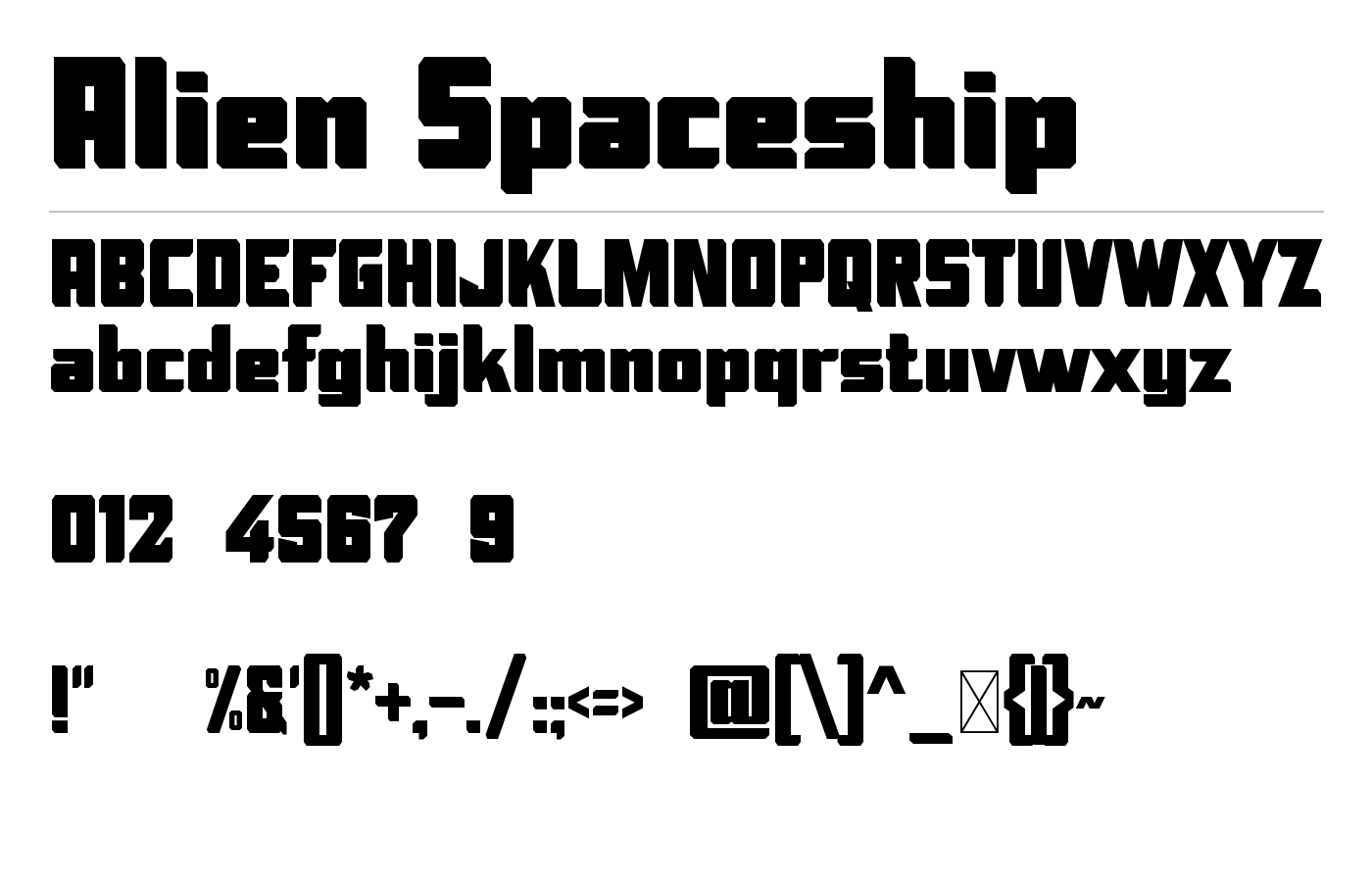
Alien Spaceship Font is a bold, blocky sans serif typeface with a futuristic, sci-fi vibe. Its heavy weight and condensed letterforms feature sharp corners and geometric shapes, making it ideal for striking headlines and logos that need a modern, tech-inspired statement. This font works best in creative projects that seek an edgy, outer-space aesthetic, such as posters, video games, and branding related to technology or entertainment.
Alien Spaceship Font
About Alien Spaceship Font
| Font family | Alien Spaceship Font |
| Designer | Anang Fibriyanto |